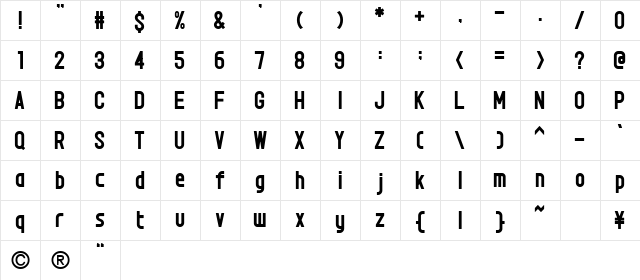
71mksd2 ab
Design Context for 71mksd2 Typeface
71mksd2 is a composed and adaptable typeface that performs quietly and consistently across a wide range of design contexts.